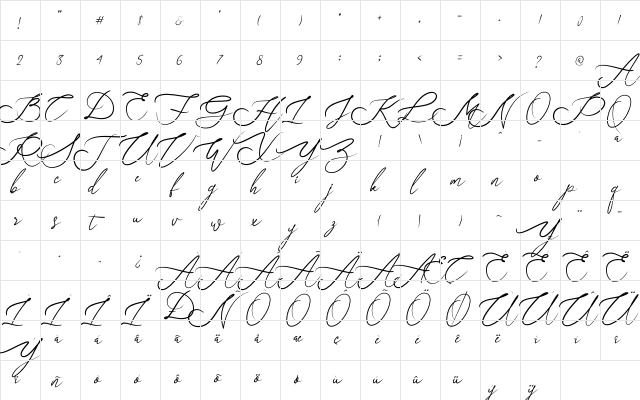
Just Sunday Regular
| Foundry | WDFont Creative |
| Designer | Captain Jack |
Design Context for Just Sunday Typeface
Just Sunday is a composed and adaptable typeface that performs quietly and consistently across a wide range of design contexts.